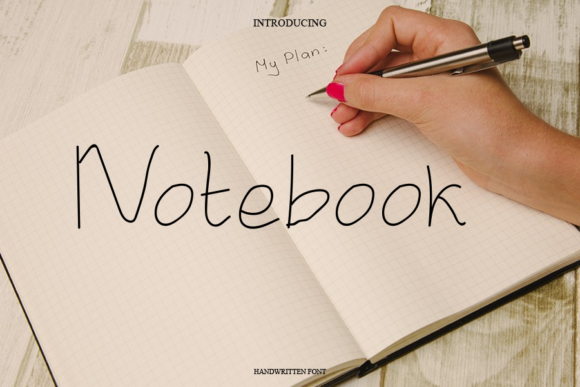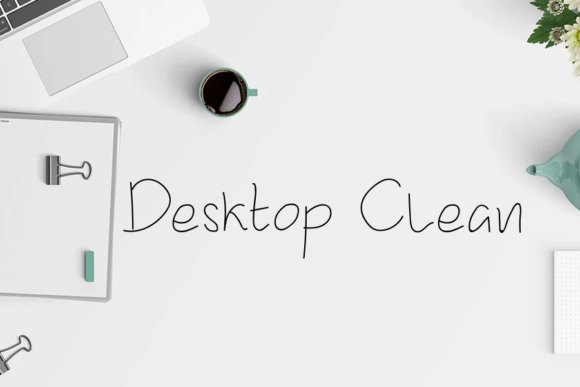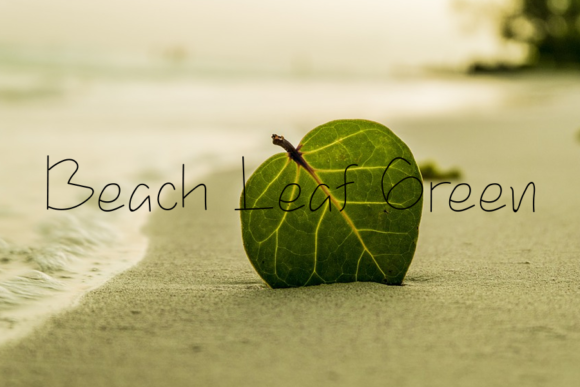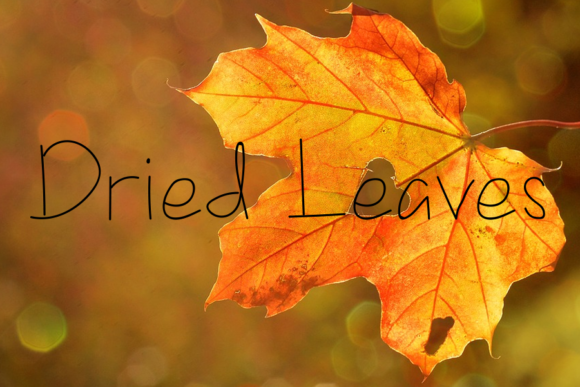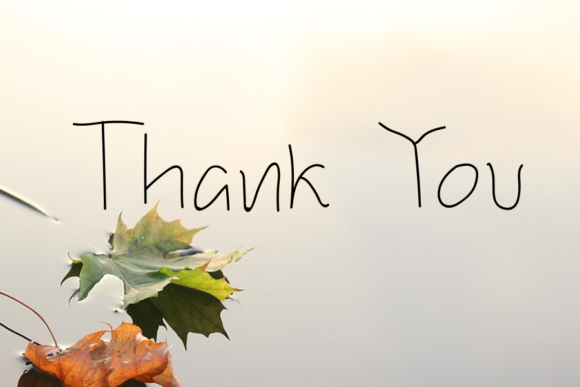
Notebook Font
About Notebook Font
Notebook is a handwritten font that can be used for all chalkboard quotes or teaching material! Its authentic handwritten look and feel will add a personal and realistic feel to your designs.